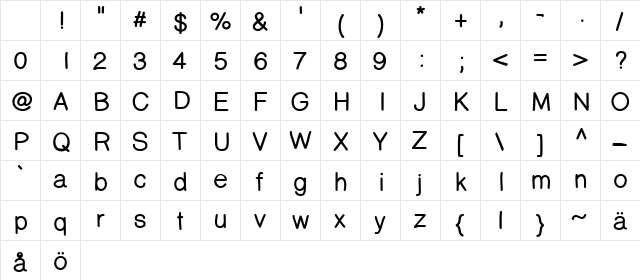
Complete PrinsesstartaDEMO Bold glyph index. Displaying only characters natively supported by PrinsesstartaDEMO Bold font.
PrinsesstartaDEMO is a composed and adaptable typeface that performs quietly and consistently across a wide range of design contexts. Its bold stroke weight gives it real presence on the page.